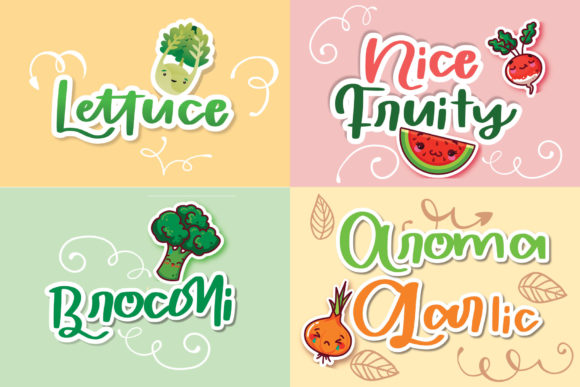
The Aroma Garlic Font: A Fun and Quirky Display Font to Brighten Up Your Designs
An Honest Review of Aroma Garlic Font
- ✨ Unique and quirky design that’s sure to turn heads
- ✅ Highly legible, even at smaller sizes
- 🎉 Perfect for display text, titles, and headings
- 💻 Works beautifully on both digital and print materials
While Aroma Garlic is an amazing font, there are a few things to keep in mind. 🤔 For example, it may not be the best choice for body text or longer paragraphs, as its playful nature can be overwhelming. ⚠️ Additionally, some of the more intricate details may not render well at very small sizes.
The Story Behind Aroma Garlic Font
Aroma Garlic was designed by a team of creatives who wanted to create a font that was both fun and elegant. Inspired by the sights and smells of a bustling city, Aroma Garlic is a font that’s sure to add some personality to your designs.
| Font Name | Aroma Garlic Font |
| Author | goodigital |
Q: What type of designs is Aroma Garlic best suited for?
A: Aroma Garlic is perfect for display text, titles, and headings. It’s ideal for branding, logos, stationery, business cards, flyers, and more!
Q: Is Aroma Garlic easy to read?
A: Yes! Despite its playful nature, Aroma Garlic is highly legible, even at smaller sizes.